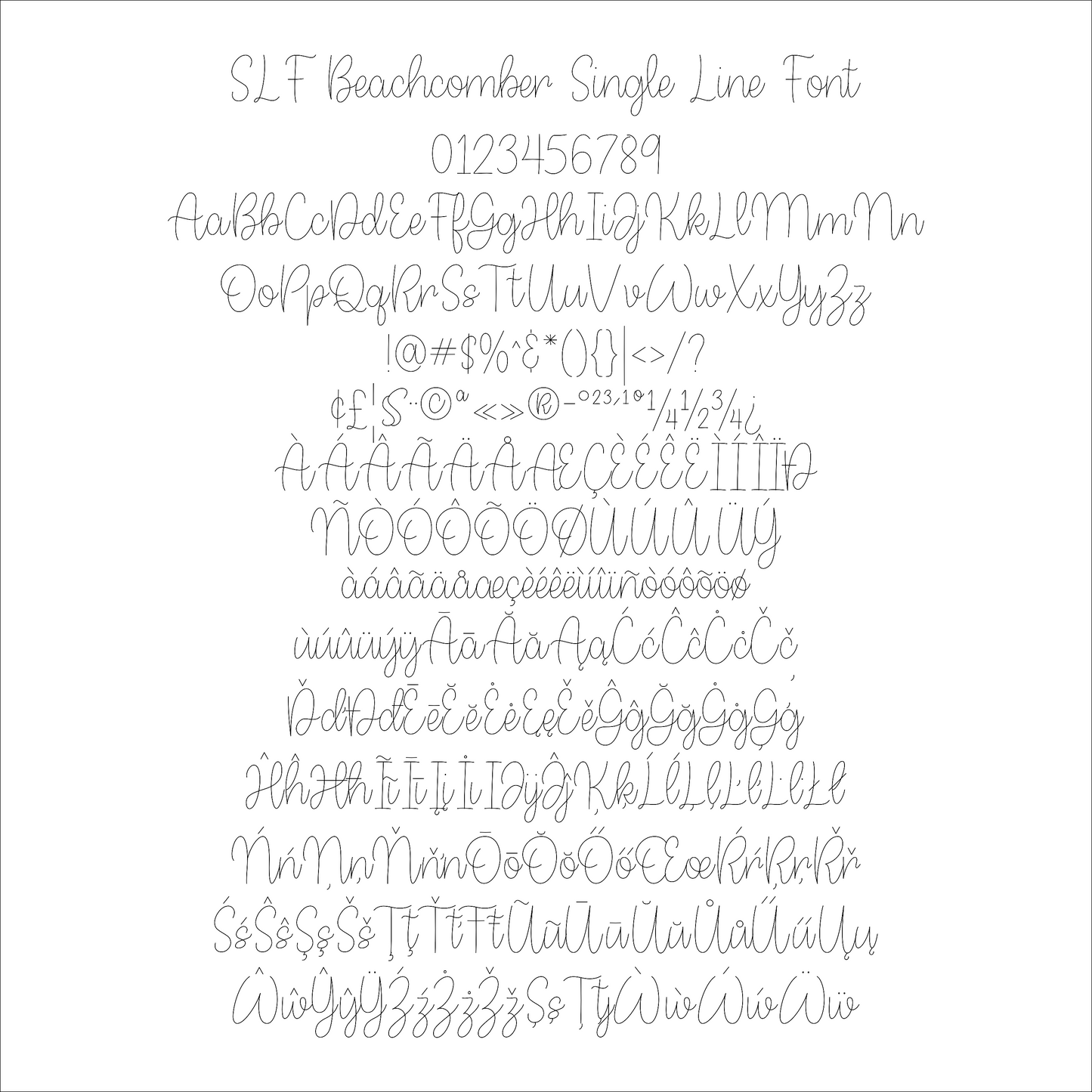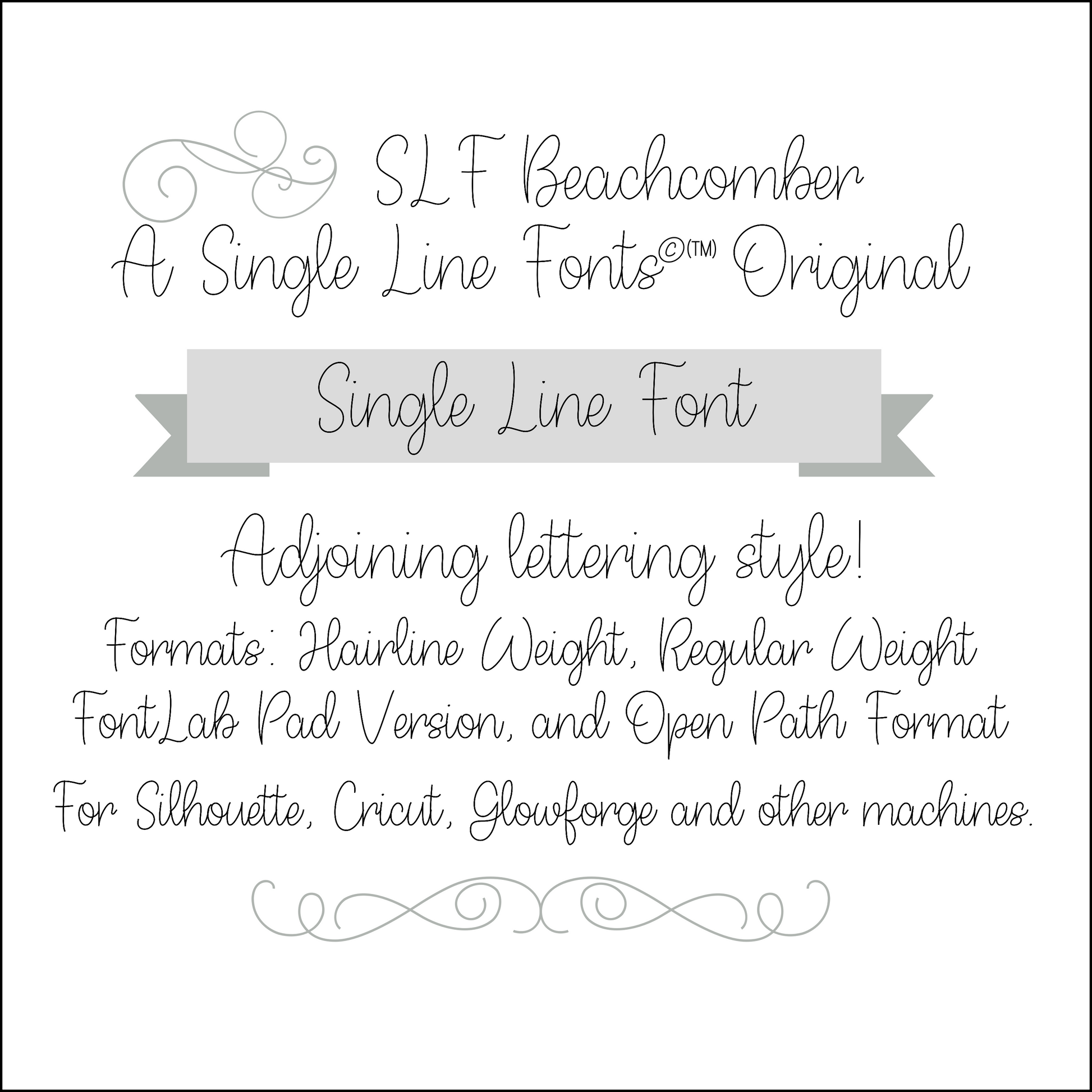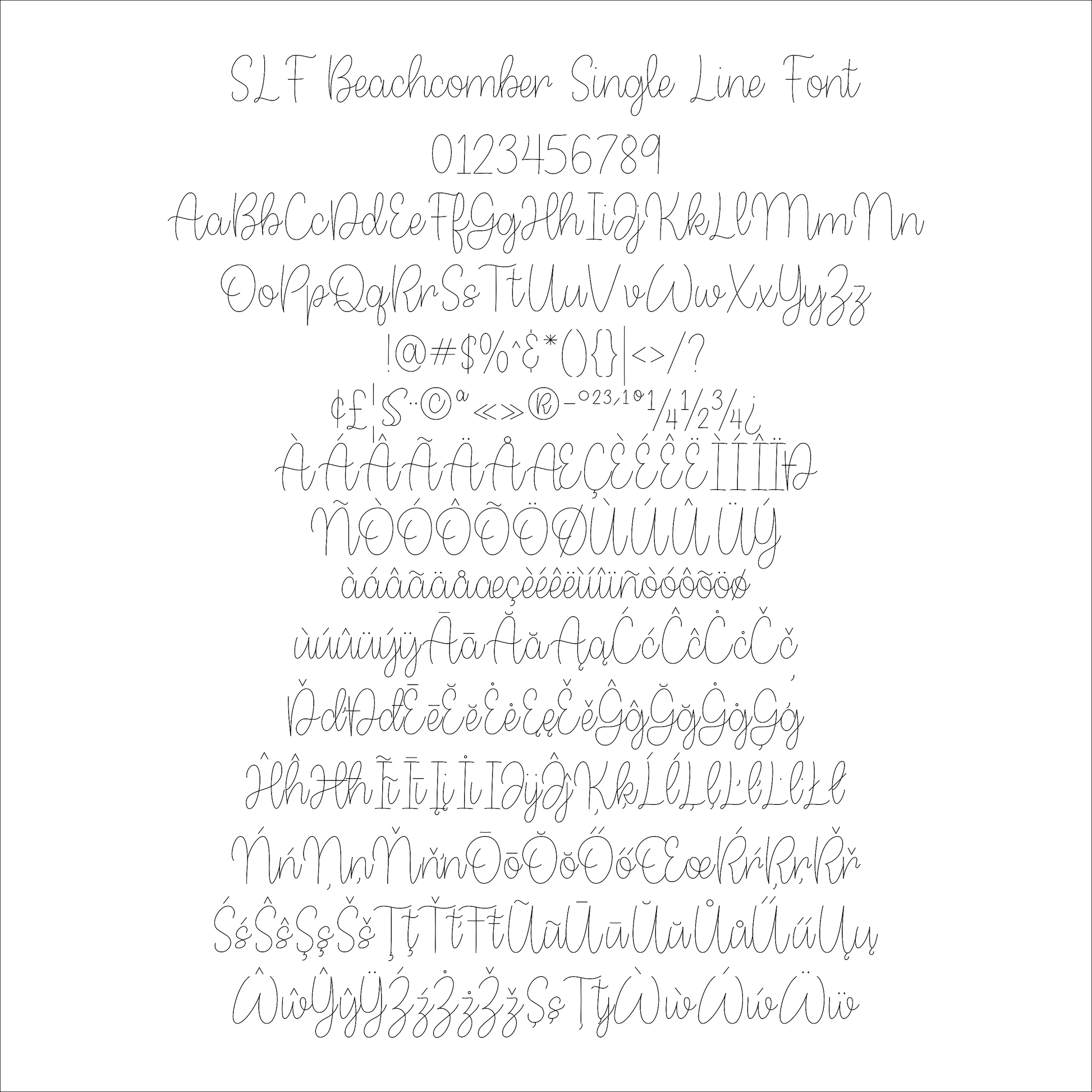
SLF Beachcomber – Single Line Print Font for Engraving & Crafting
SLF Beachcomber is a relaxed, coastal-inspired single line print font with smooth, friendly letterforms. Its breezy style is perfect for engraving, scoring, sketch pens, CNC work, and creative crafts that need a laid-back, easygoing aesthetic. Great for beach signs, summer projects, tags, labels, and cheerful design layouts.
This monoline font includes a complete character set with uppercase and lowercase letters, numbers, punctuation, symbols, and accented characters for multilingual support.
• Summer crafts, labels, tags, and beach-themed projects